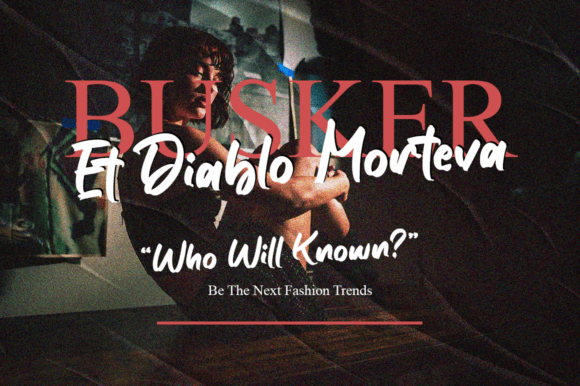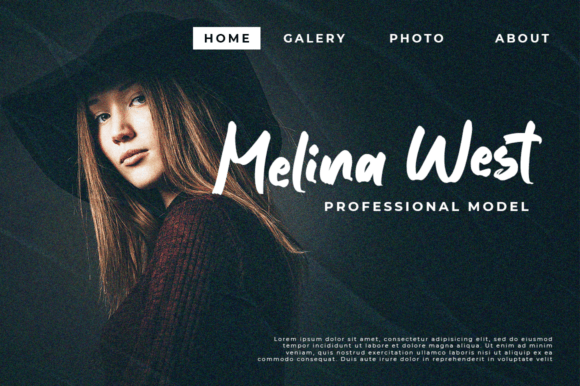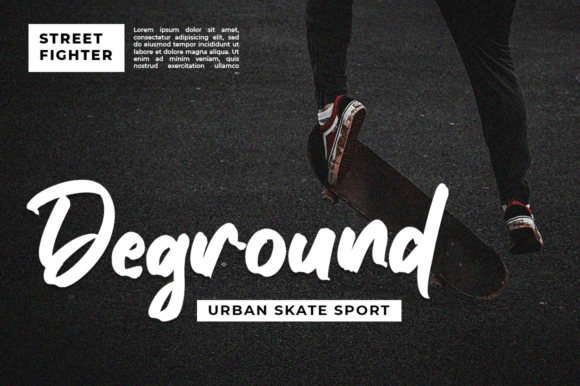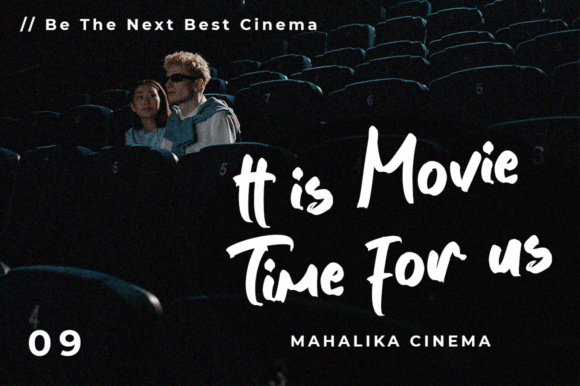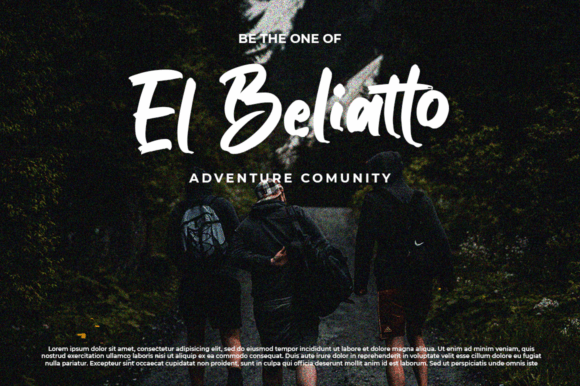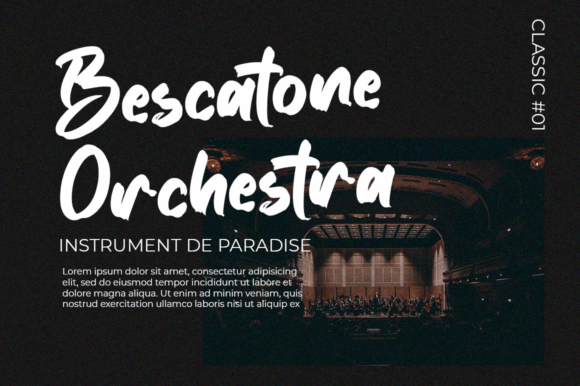
Introduction to Rechaletto Font
Rechaletto is a brushed script font featuring charming, playful characters that seem to dance along the baseline.
Add this font to your most creative ideas, and notice how it makes them stand out .